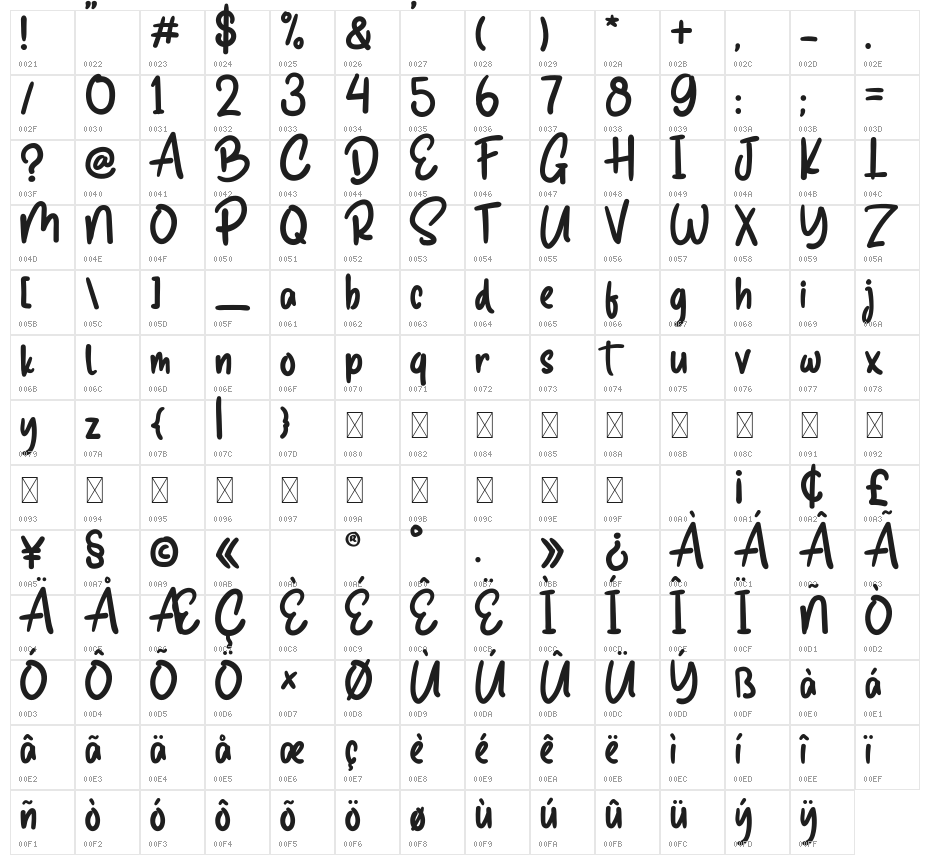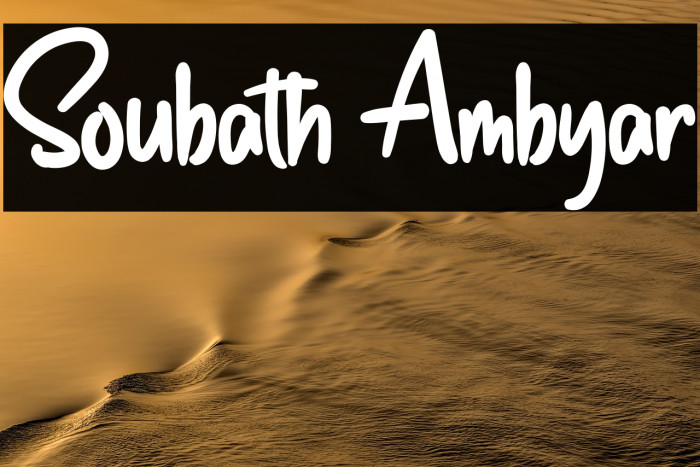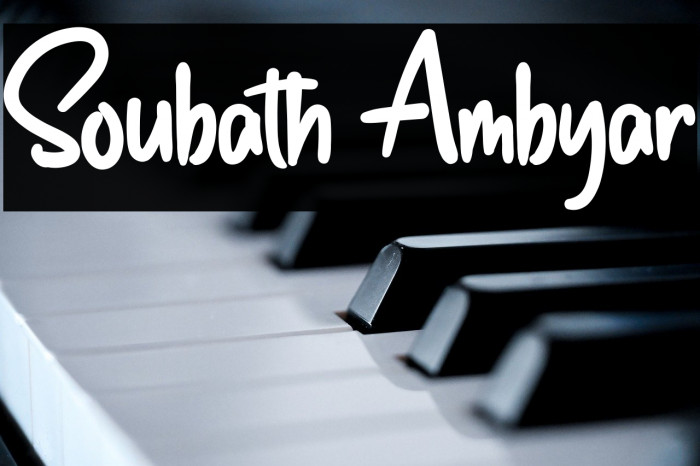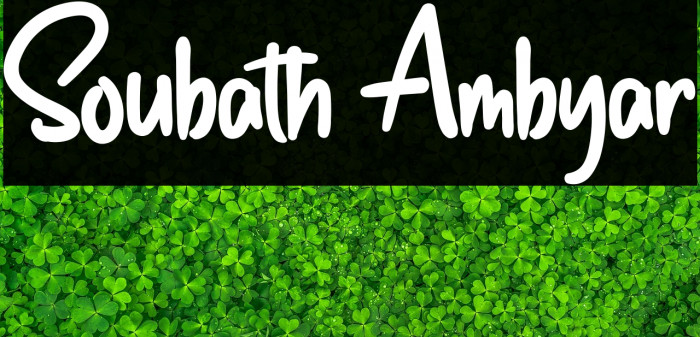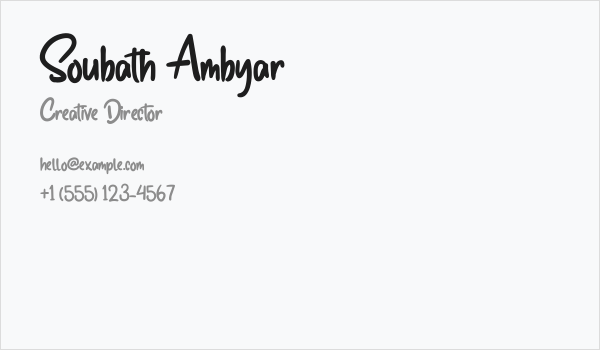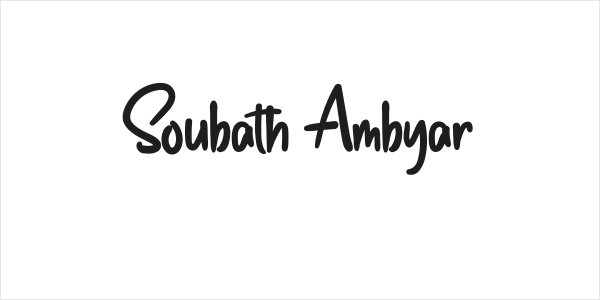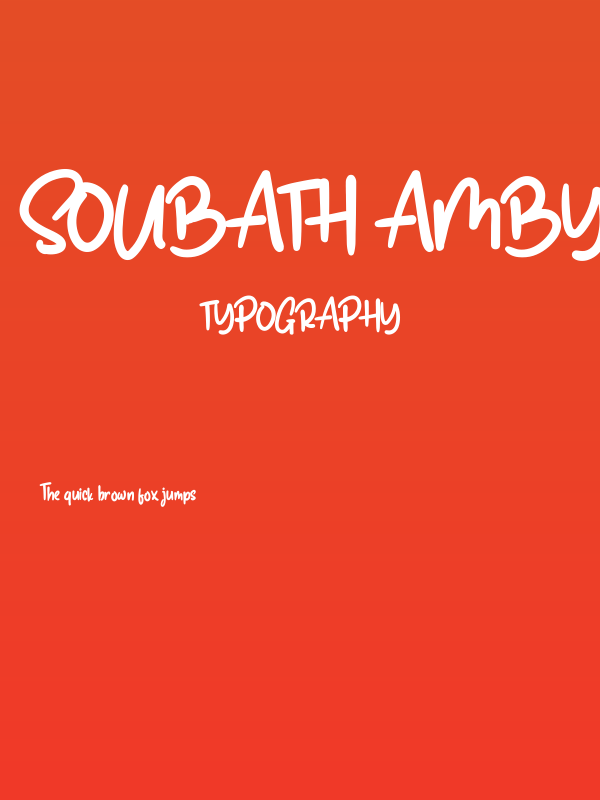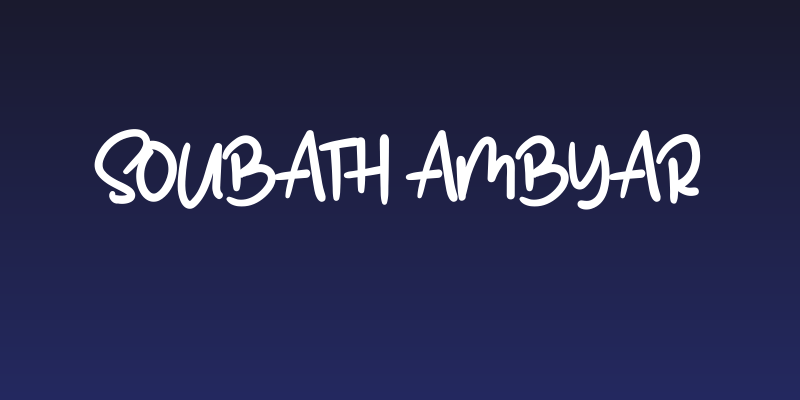
Soubath Ambyar Font
Soubath Ambyar Description
This font features a bold and playful handwritten style, characterized by its thick strokes and smooth curves. The uppercase letters are slightly taller than the lowercase, with a consistent stroke width that gives a cohesive look. The numerals are rounded and maintain the playful aesthetic, making them easily readable. Special characters are integrated seamlessly, maintaining the font's overall style. The font's informal and friendly appearance makes it suitable for creative projects that require a personal touch.
| Proposed Projects | Ideal for greeting cards, children's books, playful branding, and social media graphics. |